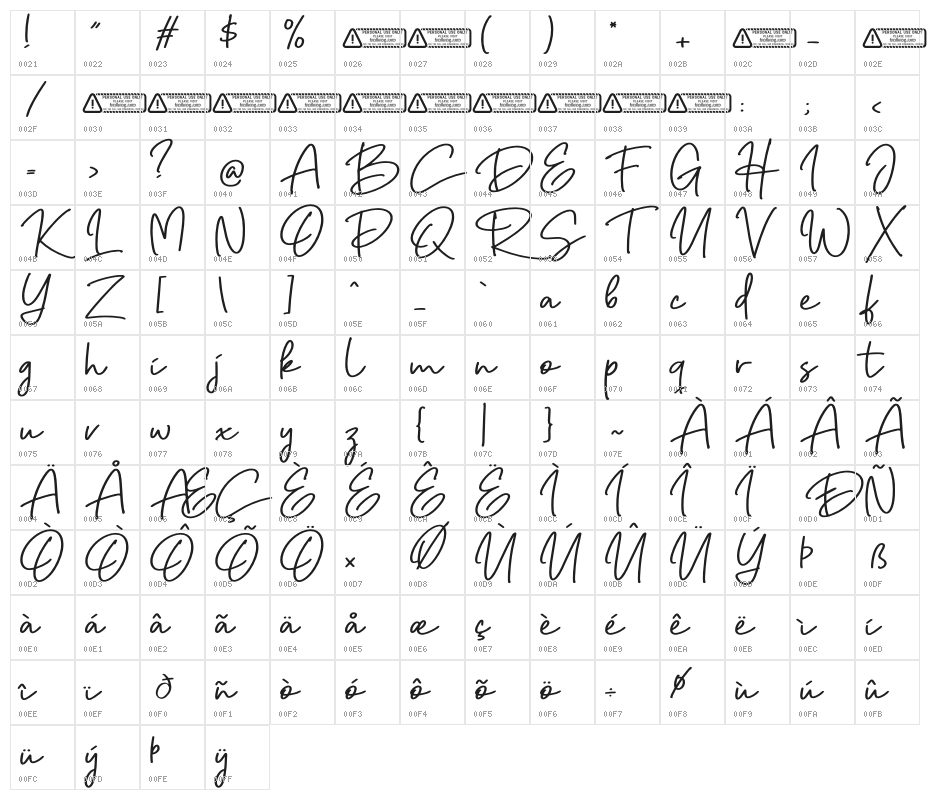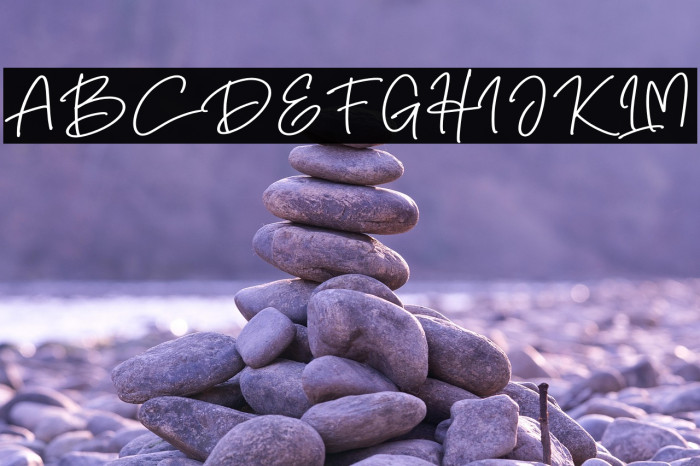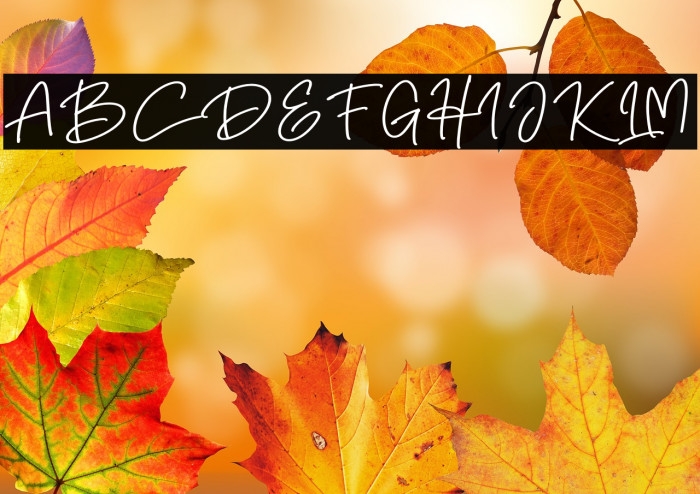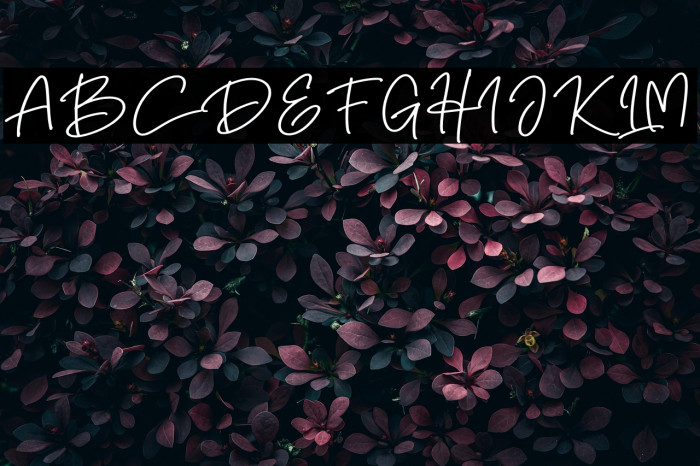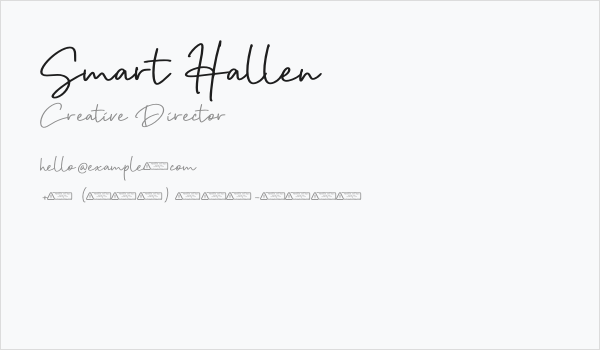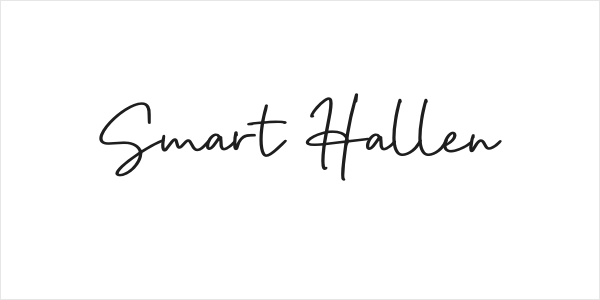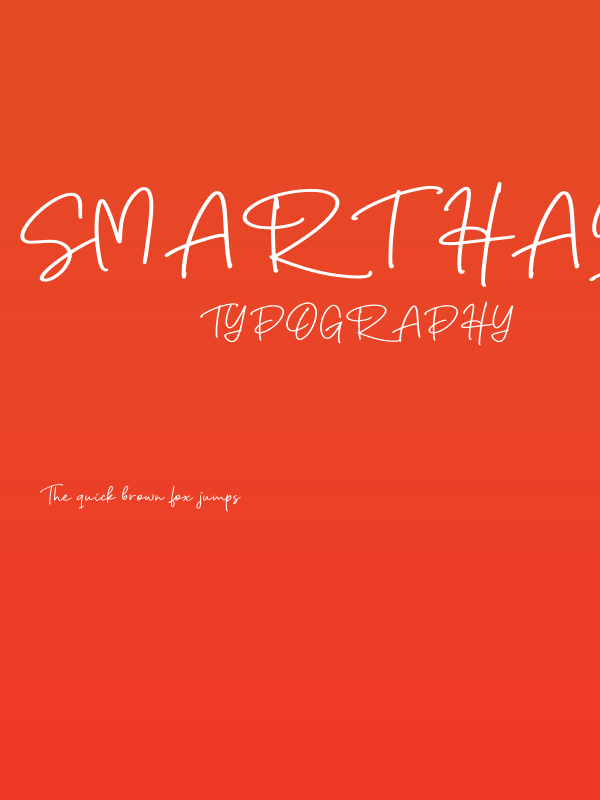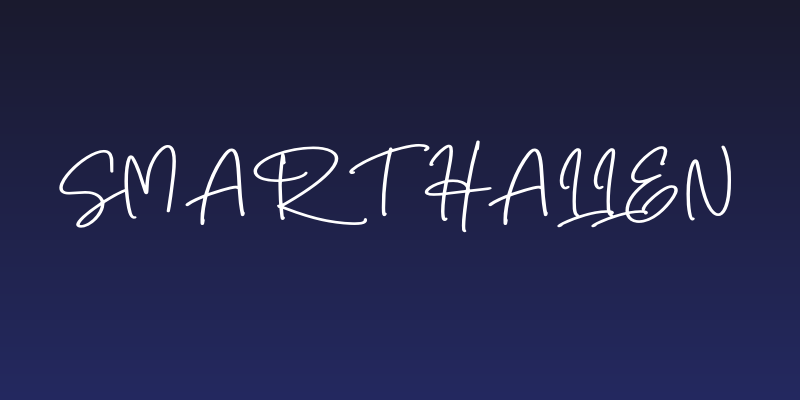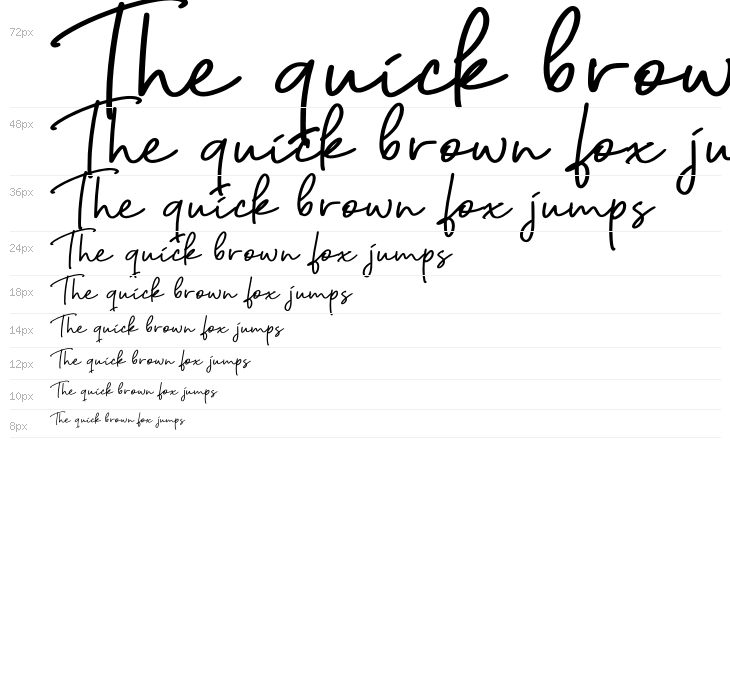
Smart Hallen Font
Smart Hallen Description
A handwritten script font with a casual and flowing style, featuring both uppercase and lowercase letters with a natural, organic feel.
| Overall Style | Casual, Organic |
| Use Case | Logos, Invitations, Personal branding |
| Proposed Projects | Invitations, greeting cards, personal branding. |